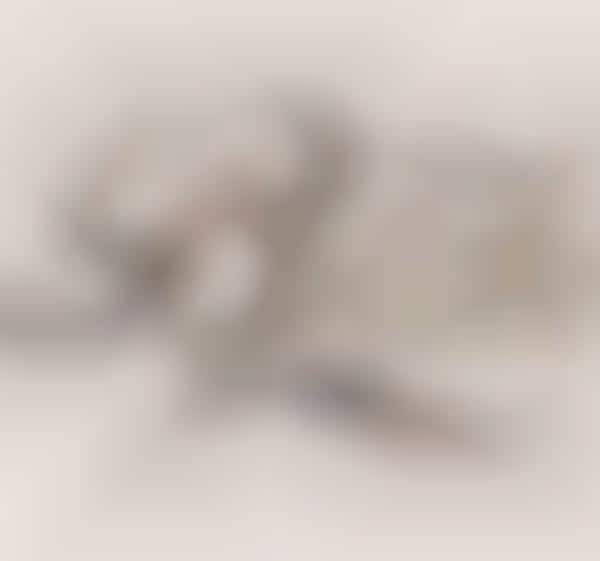
In an obscene project entitled 'Better with Flowers,' graphic designer Antonio Rodriguez Jr. uses a flower typeface to spell out offensive words. The juxtaposition of the pretty florals and the derogatory language turns the phrase 'say it better with flowers' on its head.
With words like 'bitch,' 'slut,' and 'prick' included, this flower typeface series could upset some. The flowery phrases are arranged on a light pink backdrop, adding to the feminine aesthetic. The contrast of ladylike elements and entirely un-ladylike language make the custom work interesting.
The Brazilian born artist used the flower typeface to create unique greeting cards intended to be sent as a joke instead of as an actual insulting vehicle. Whether your friends have a little bit of a twisted sense of humor, or you just appreciate some good swearing, these greeting cards are not to be missed.